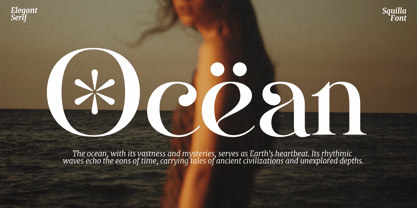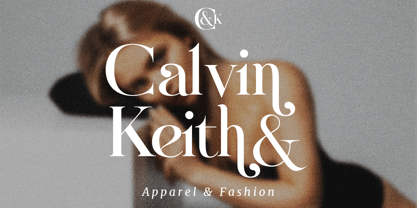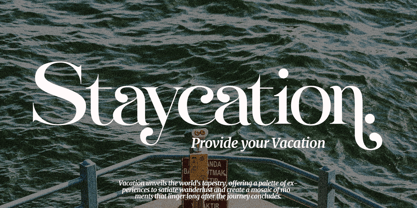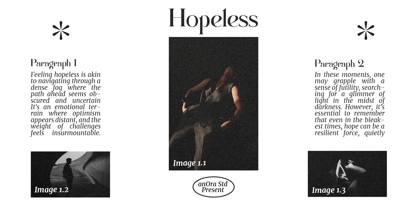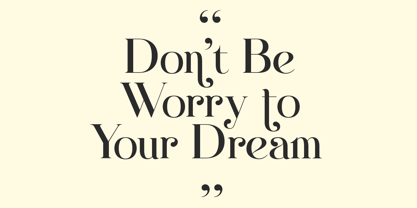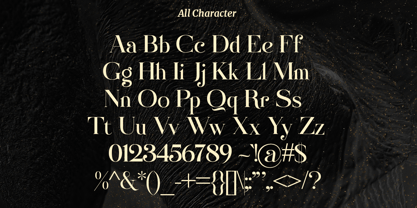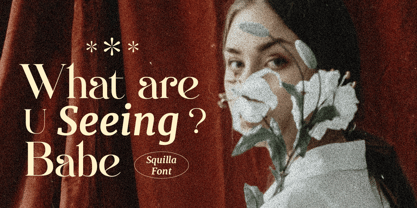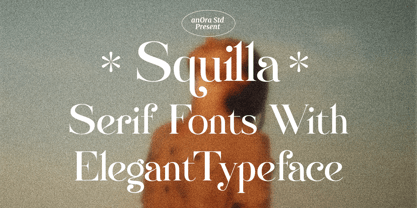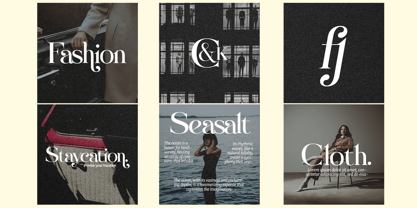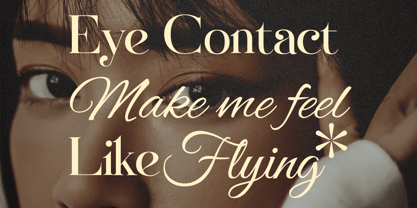
Squilla
by Anora Studio
The Squilla Font Family was designed by Sigit Mulyo Utomo and published by Anora Studio. Squilla contains 1 styles.
Squilla is Elegance Serif Font with Stylistic Alternates.
Designers: Sigit Mulyo Utomo
Publisher: Anora Studio
Foundry: Anora Studio